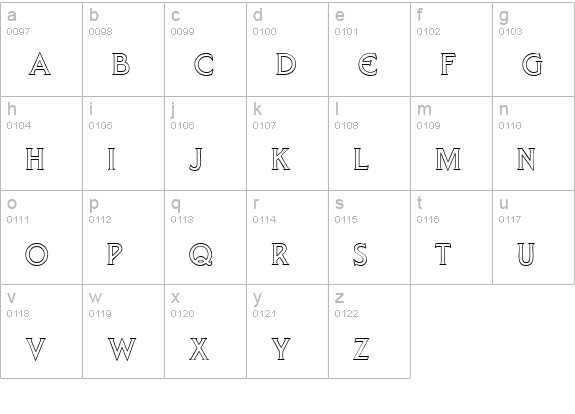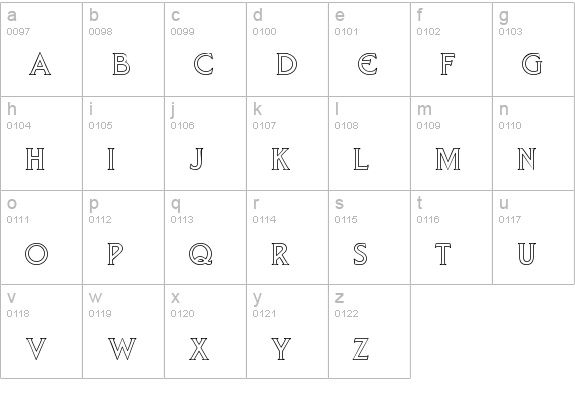
ResusaSCapsSSK Font Details
ResusaSCapsSSK font is a stunning display font that exudes elegance and sophistication. Its unique and stylish design is perfect for adding a touch of class to any project. With its sharp, clean lines and perfectly balanced letterforms, this font is sure to make a lasting impression. One of the best things about ResusaSCapsSSK font is that it is freely available to download at FontsMarket.com. This means that you can add this incredible font to your collection without having to spend a dime. Whether you are a professional designer or just someone looking to add a little flair to your personal projects, this font is a must-have. The versatility of ResusaSCapsSSK font is another reason why it stands out from the crowd. With its wide range of weights and styles, you can use this font for everything from headlines and logos to body text and captions. It can easily adapt to any design concept or aesthetic, making it a truly versatile choice. The attention to detail in ResusaSCapsSSK font is truly remarkable. Every curve and stroke has been meticulously crafted to create a seamless and cohesive look. The result is a font that is not only visually stunning but also highly legible, ensuring that your message comes across loud and clear. Whether you are working on a branding project, a website design, or even a personal invitation, ResusaSCapsSSK font will add that extra touch of sophistication and professionalism. Its timeless appeal and eye-catching design make it a fantastic choice for any project. So why wait? Head over to FontsMarket.com and download ResusaSCapsSSK font for free today. Don't miss out on the opportunity to elevate your designs with this incredible font.